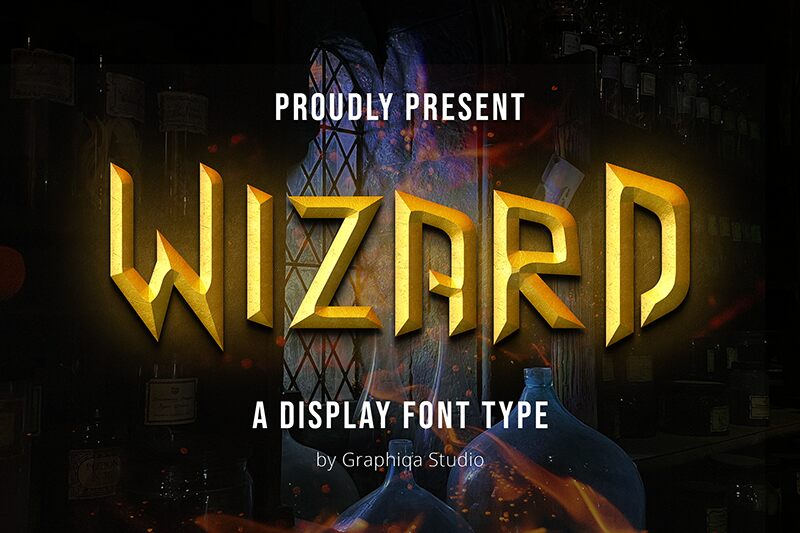
Wizard Regular
Wizard, a gothic font by Graphiqa Studio, blends the traditional elegance of gothic fonts with a modern twist. Its semi-light weight adds an ethereal touch to any project, while its condensed width allows for efficient use of space.
Perfect for branding materials and logo designs, Wizard delivers a dash of mystery and sophistication. It also excels in editorial layouts, bringing a contemporary edge to magazines and books. With its unique style and versatility, Wizard is truly spellbinding in both print and digital media.